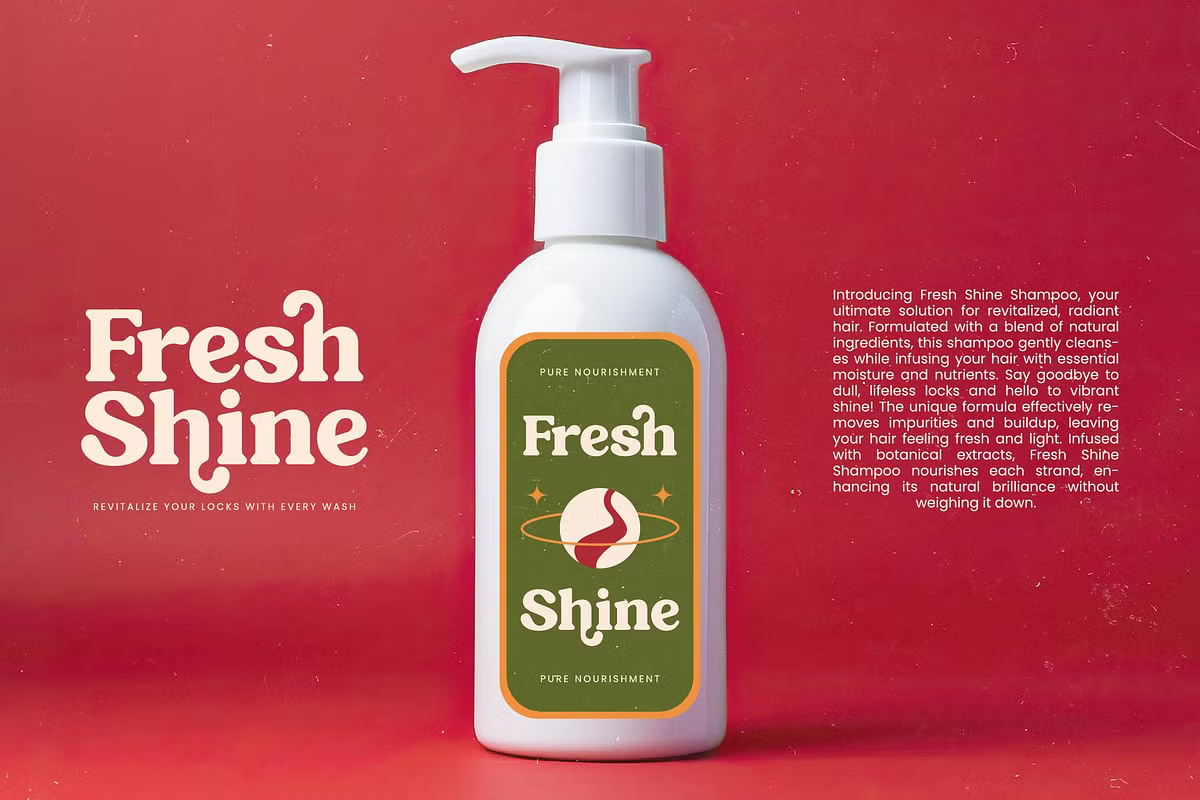
Hotdog Italian Font
Hotdog Italian is a bold display serif typeface, perfect for making a statement. Its elegant yet strong design makes it ideal for a wide range of projects, including logos, branding, home decor, product packaging, mugs, posters, t-shirts, book covers, invitations, greeting cards, labels, and more. Whether you’re creating for a special event or adding a touch of luxury to your designs, Hotdog Italian is a stylish choice.